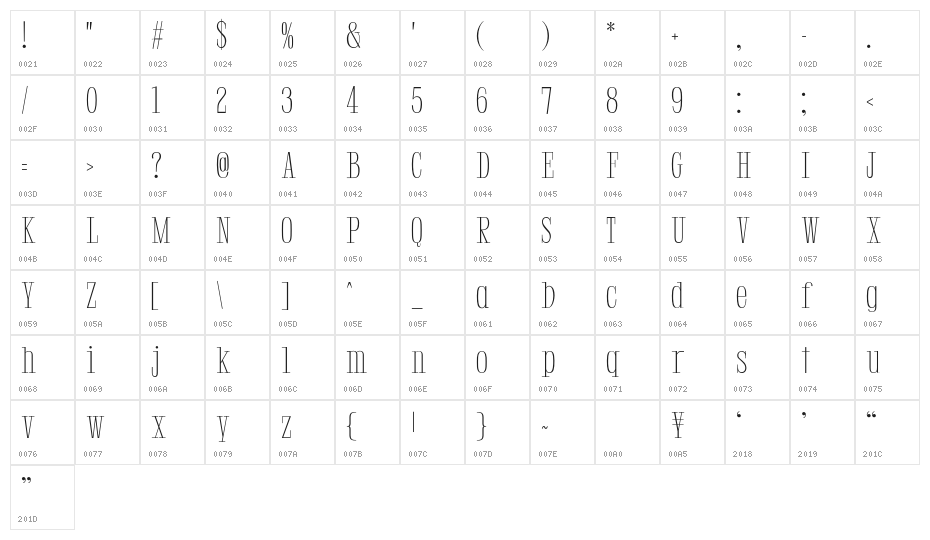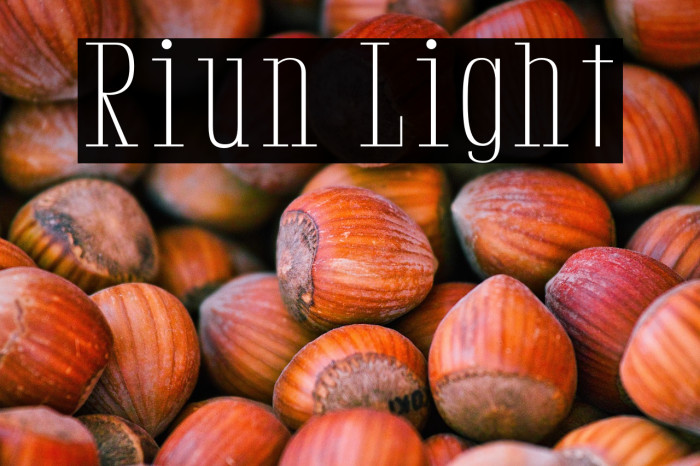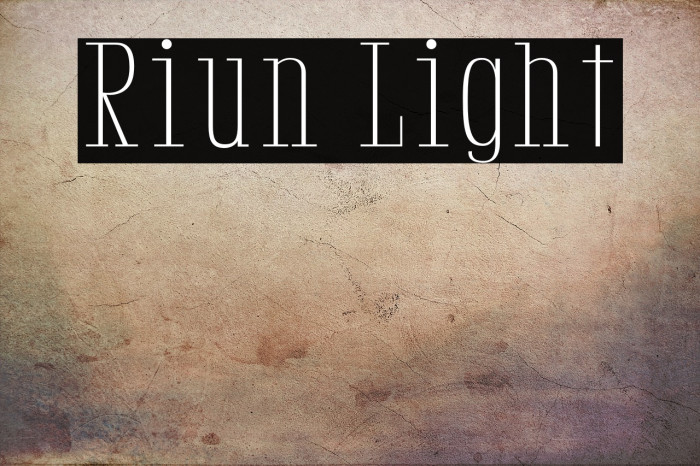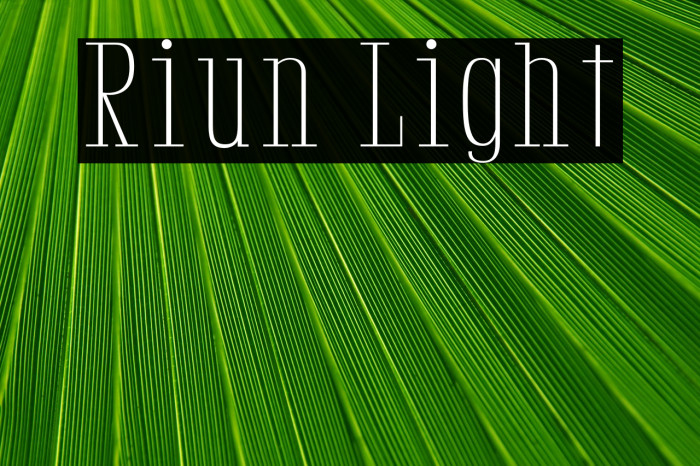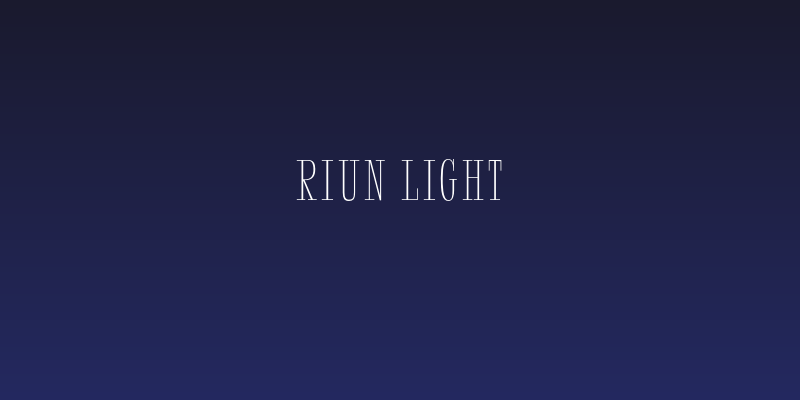
Riun Light Font
Riun Light Description
This font features a refined and elegant design characterized by its thin, elongated serifs and tall, narrow letterforms. The strokes are consistently thin, contributing to a delicate and sophisticated appearance. The uppercase letters are stately and well-proportioned, while the lowercase letters maintain a consistent height, enhancing readability. The numerals are clear and distinct, matching the overall style of the alphabet. Special characters are elegantly integrated, maintaining the font's cohesive aesthetic. This font's design is ideal for projects requiring a touch of elegance and sophistication.
| Proposed Projects | Ideal for wedding invitations, luxury branding, editorial design, and high-end product packaging. |